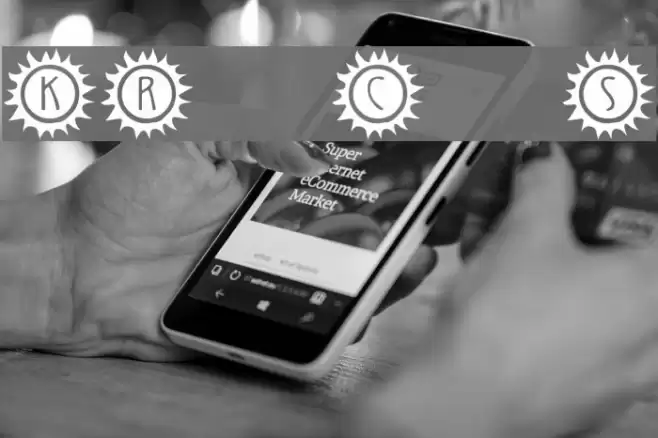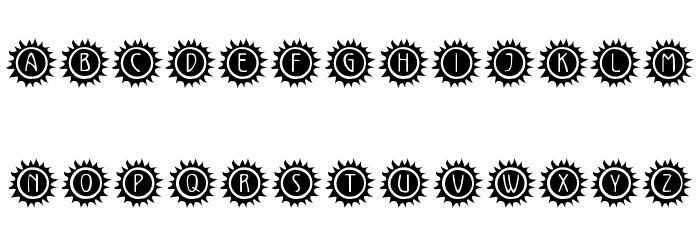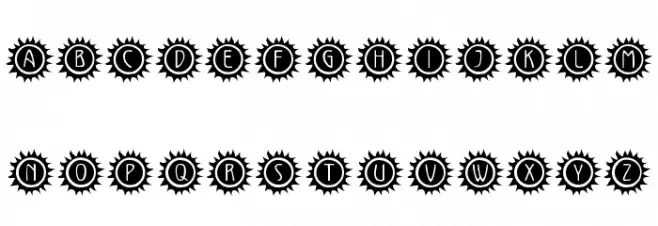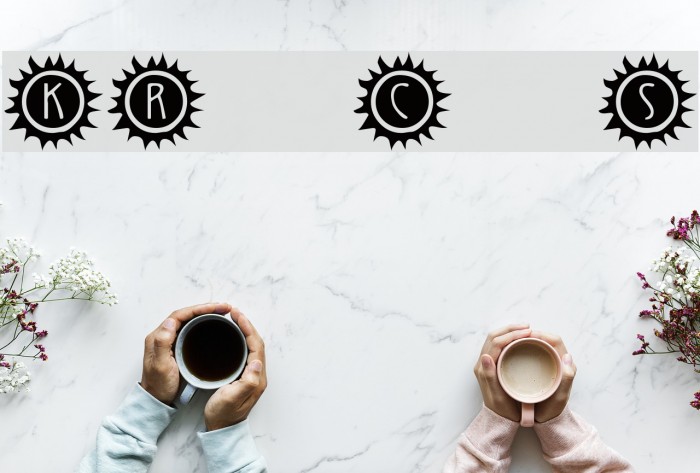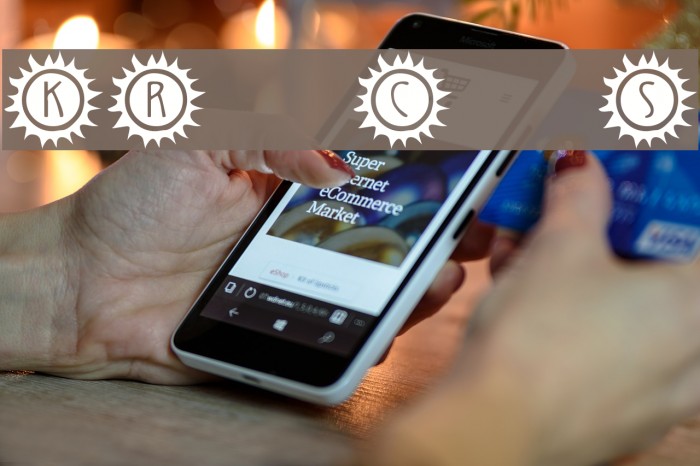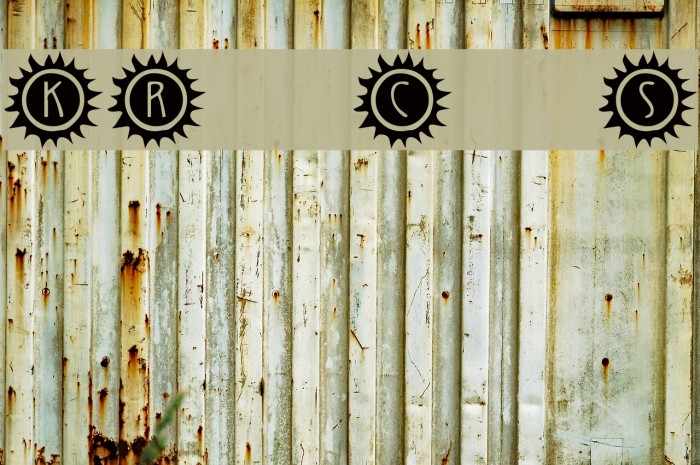
KR California Sun Font
KR California Sun Description
This decorative font features uppercase letters encased in a circular sunburst design, creating a bold and eye-catching appearance. Each letter is centered within the sunburst, which adds a playful and energetic vibe. The font is highly stylized, making it suitable for projects that require a unique and standout typeface. The consistent use of the sunburst motif across all characters ensures a cohesive look, while the bold lines of the letters provide excellent readability. This font is ideal for creative and artistic projects where a touch of whimsy and flair is desired.
A decorative font with uppercase letters in a sunburst design, perfect for creative projects from Uncategorized fonts.
- Proposed Projects: Ideal for posters, event invitations, children's book covers, and playful branding materials.